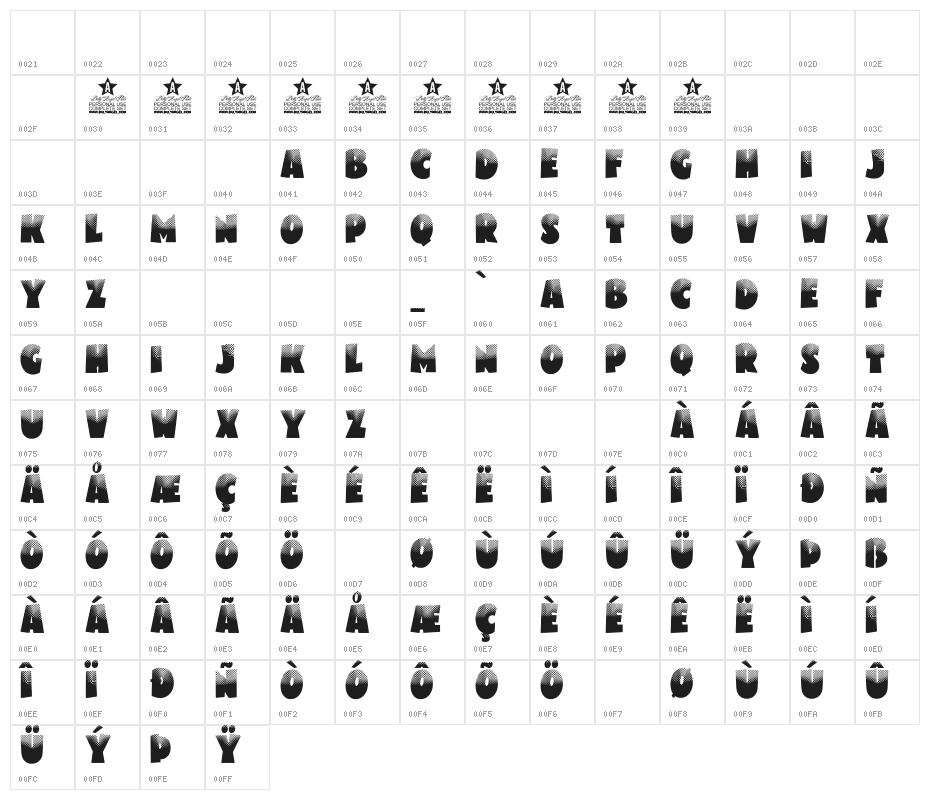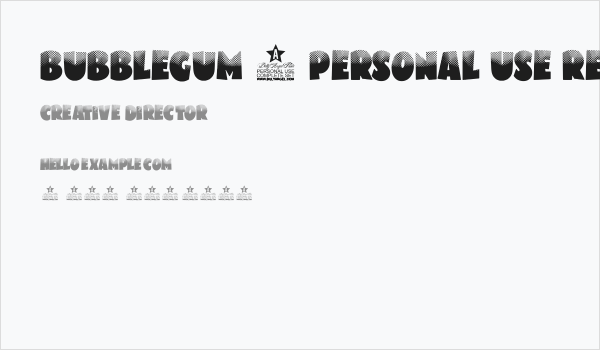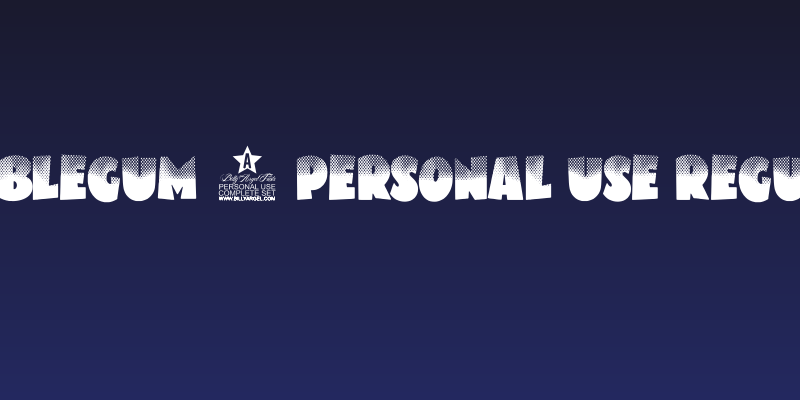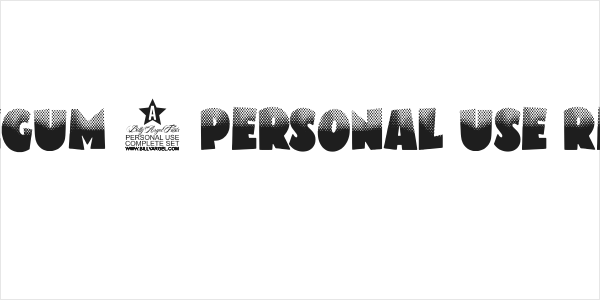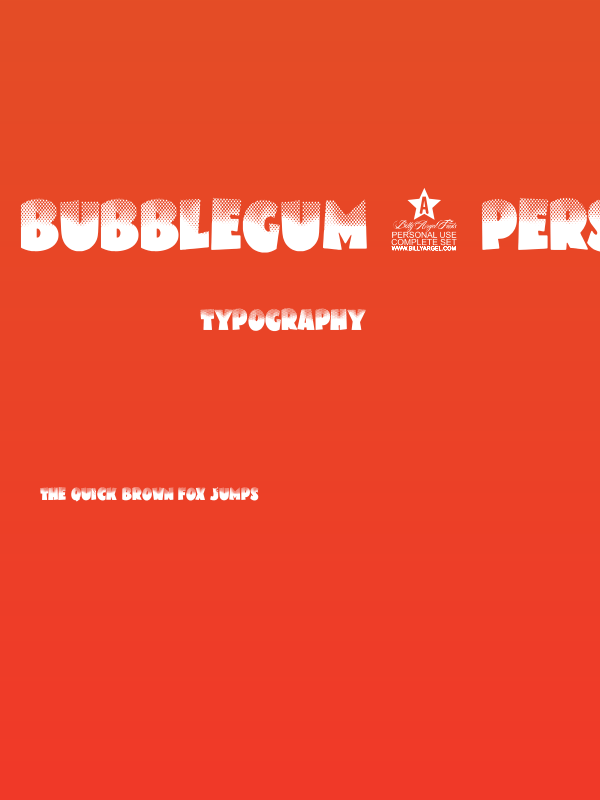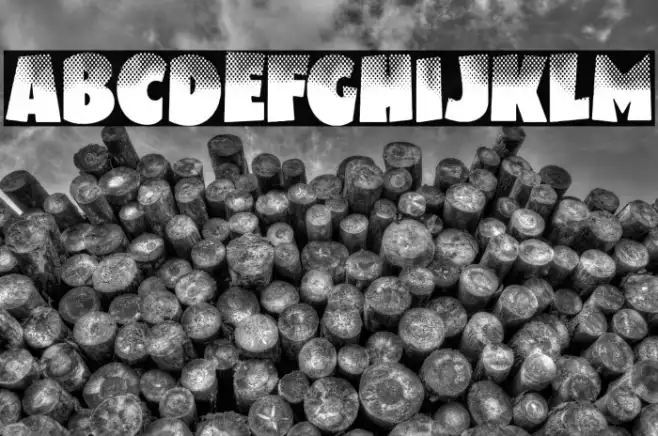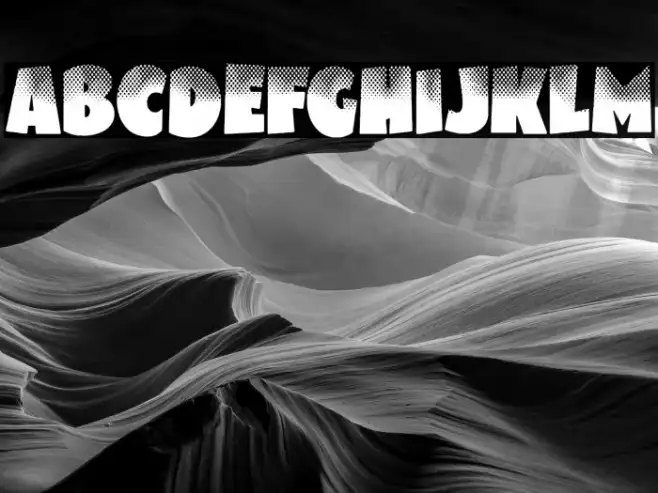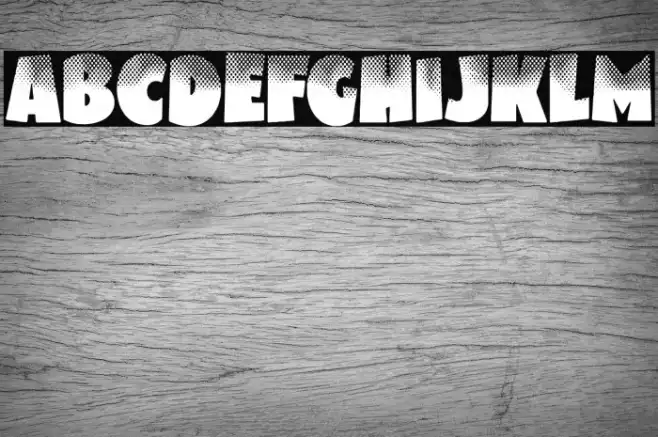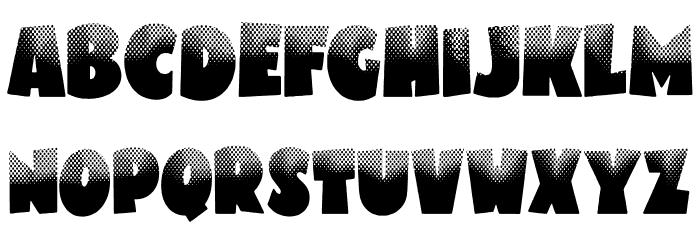
BUBBLEGUM 2 PERSONAL USE Regular Font
| Gesamtstil | Retro, Playful |
| Vorgeschlagene Projekte | Ideal for comic book covers, children's book titles, playful posters, and retro-themed designs. |